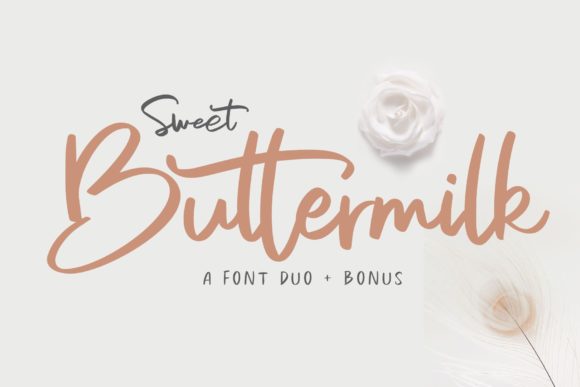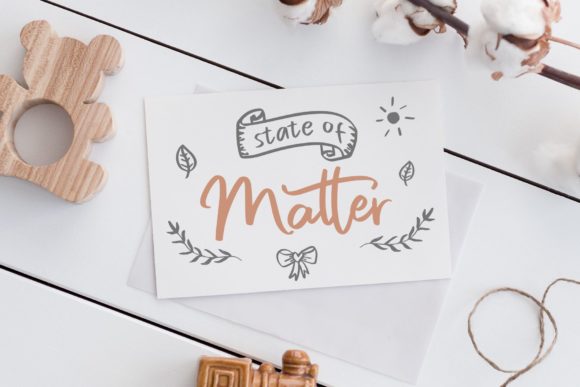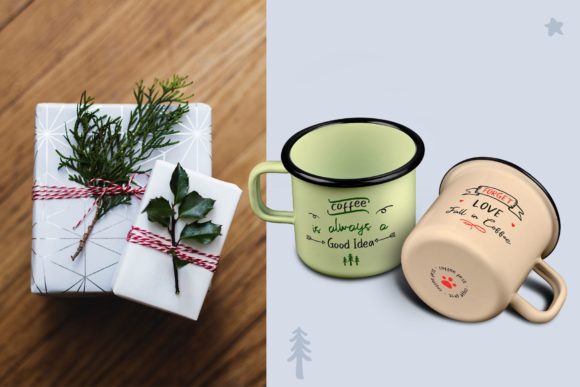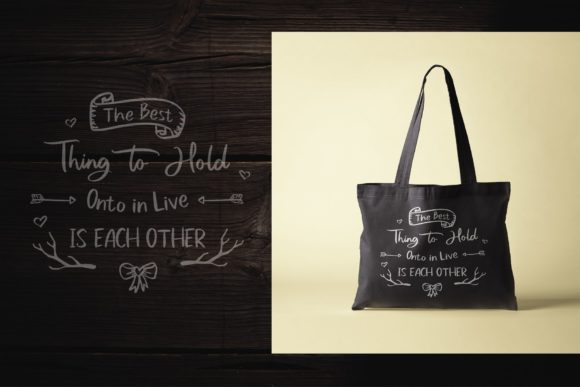
About Sweet Buttermilk Duo Font
Introducing “The Sweet Buttermilk,” a delightful font duo that brings a whimsical and playful feel to your designs. This font is not just a typeface; it’s a creative toolkit that allows you to transform type into exciting and beautiful works of art. “The Sweet Buttermilk” is based on real handwriting, giving your designs an irregular, hand-lettered look with a genuine human touch and lots of loving details.
This font duo offers a versatile range of styles, allowing you to combine them in various ways to achieve the desired effect. The whimsical letters add a playful charm to your text, making it perfect for a wide array of creative projects.
Whether you’re working on branding, invitations, posters, or any design that calls for a touch of whimsy, “The Sweet Buttermilk” provides the tools you need. The irregular, hand-lettered look adds character and uniqueness, setting your designs apart with a genuine and human feel.
One of the standout features of “The Sweet Buttermilk” is the ability to combine font styles, add ornamental swashes, banners, and more. This versatility allows you to create magnificent designs even from a single word, providing endless possibilities for creative expression.
In summary, “The Sweet Buttermilk” is more than just a font duo; it’s a design toolkit that brings whimsy and creativity to your projects. Embrace its playful feel for branding, invitations, posters, and more, and let “The Sweet Buttermilk” add a touch of delight and character to your designs.